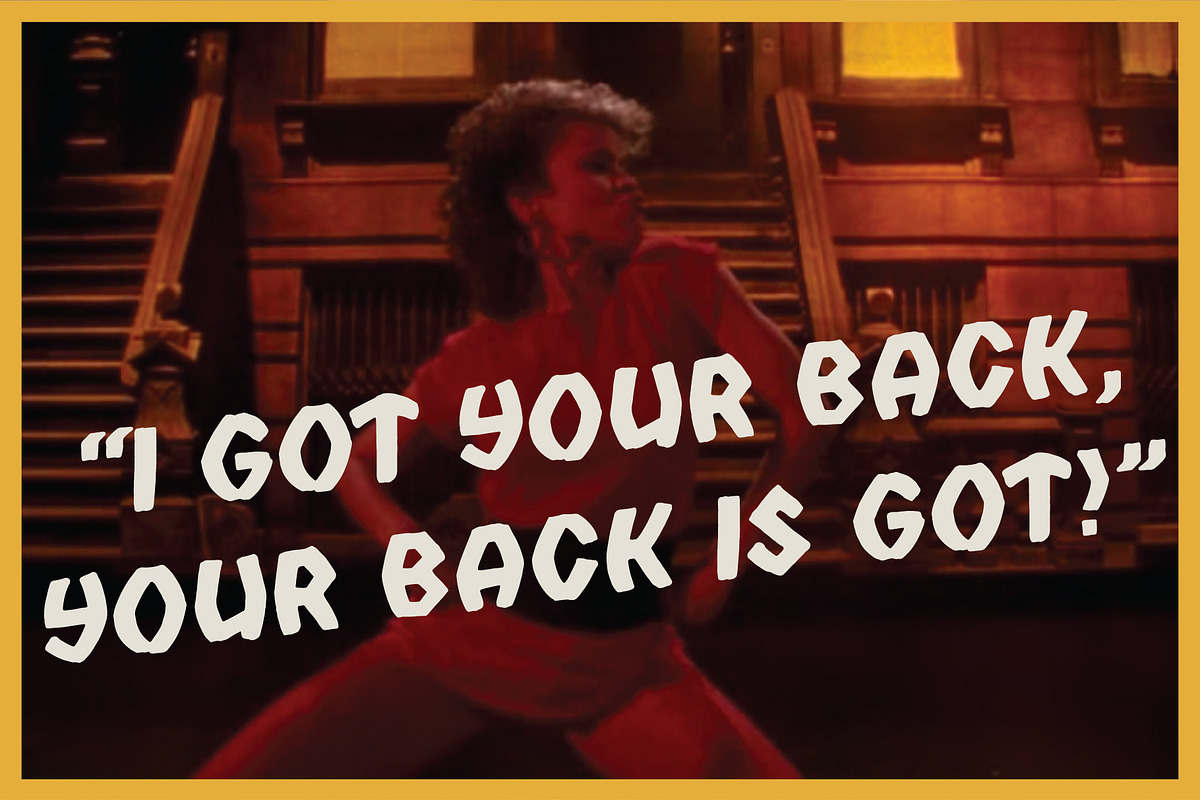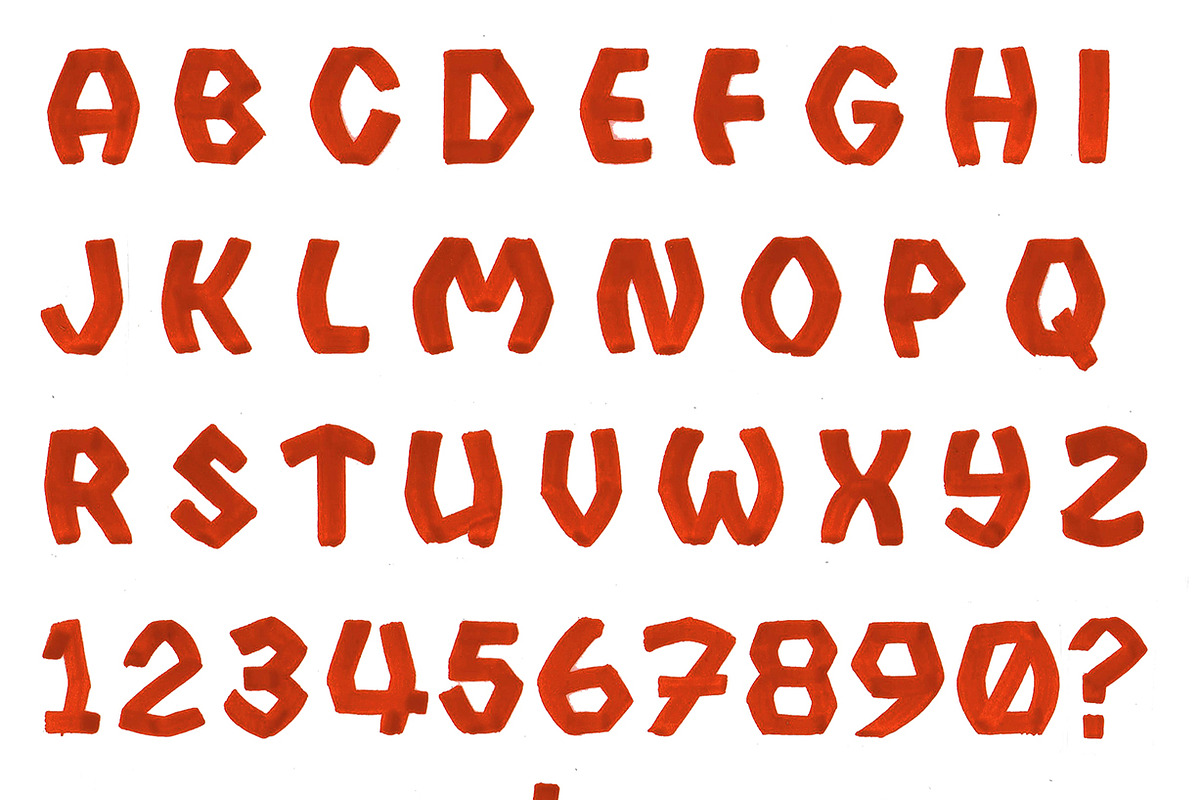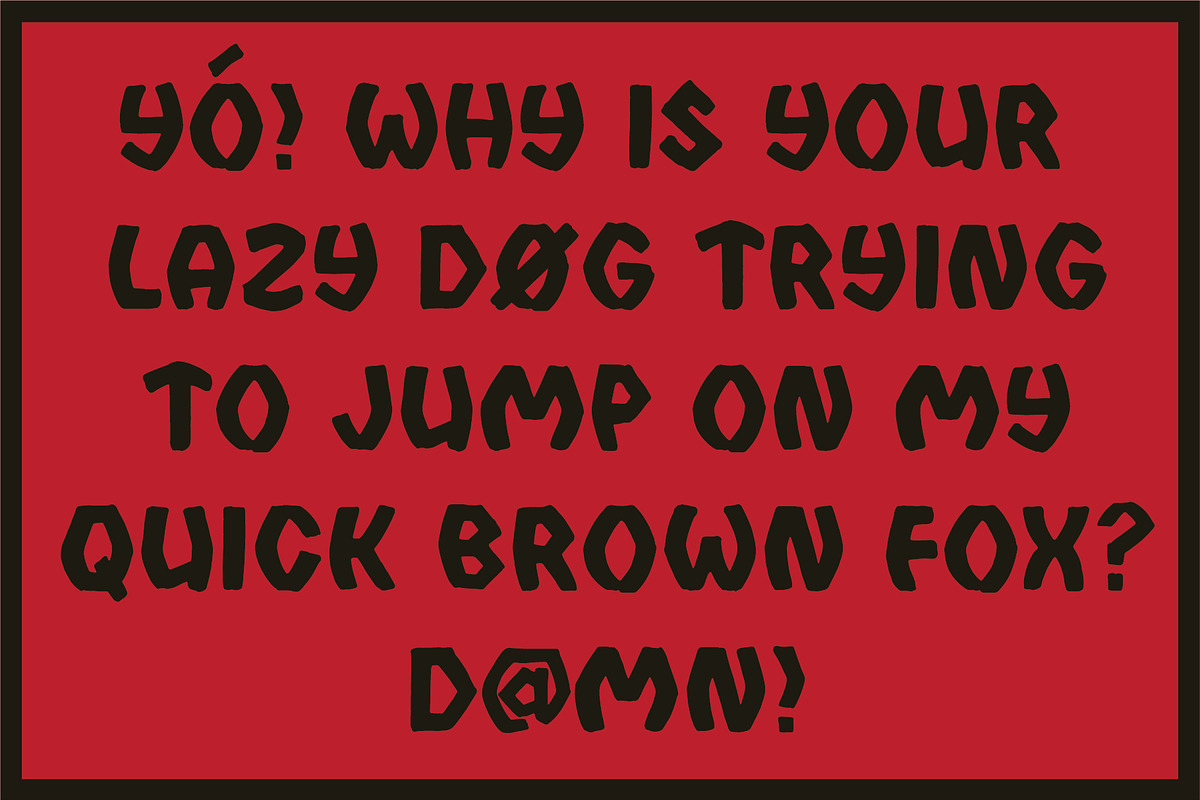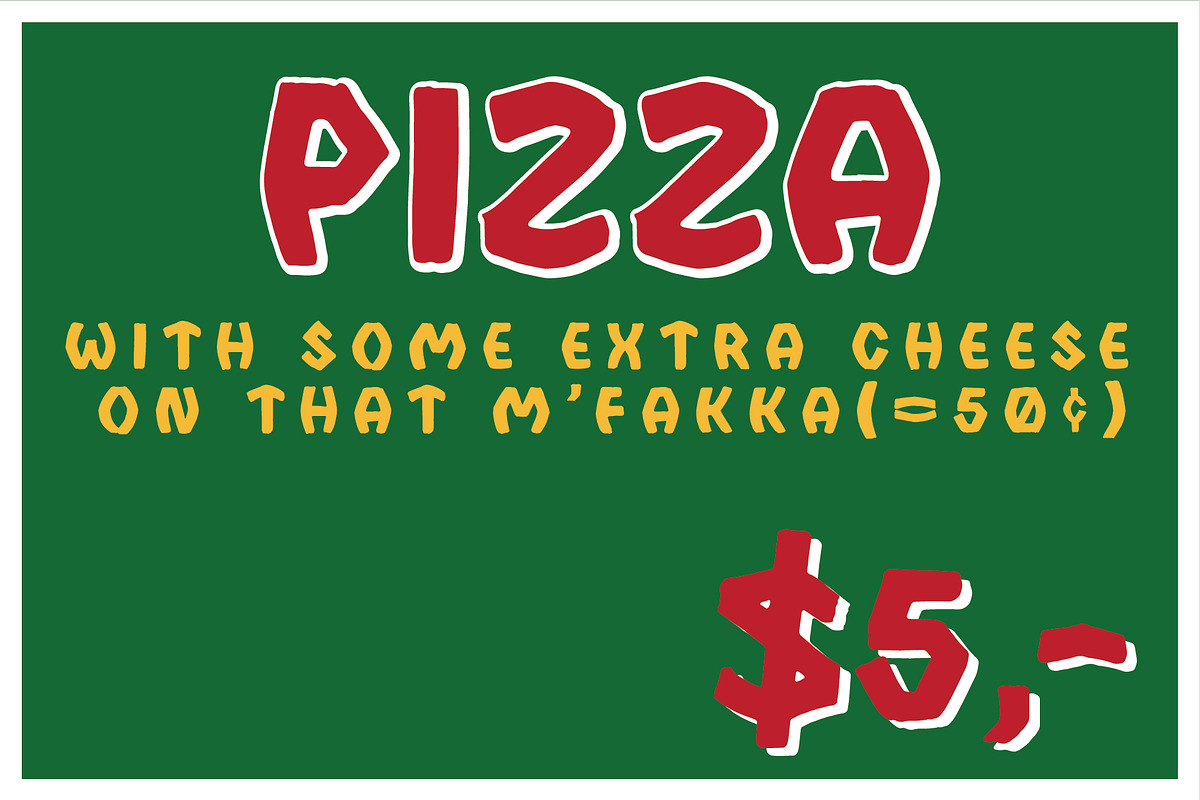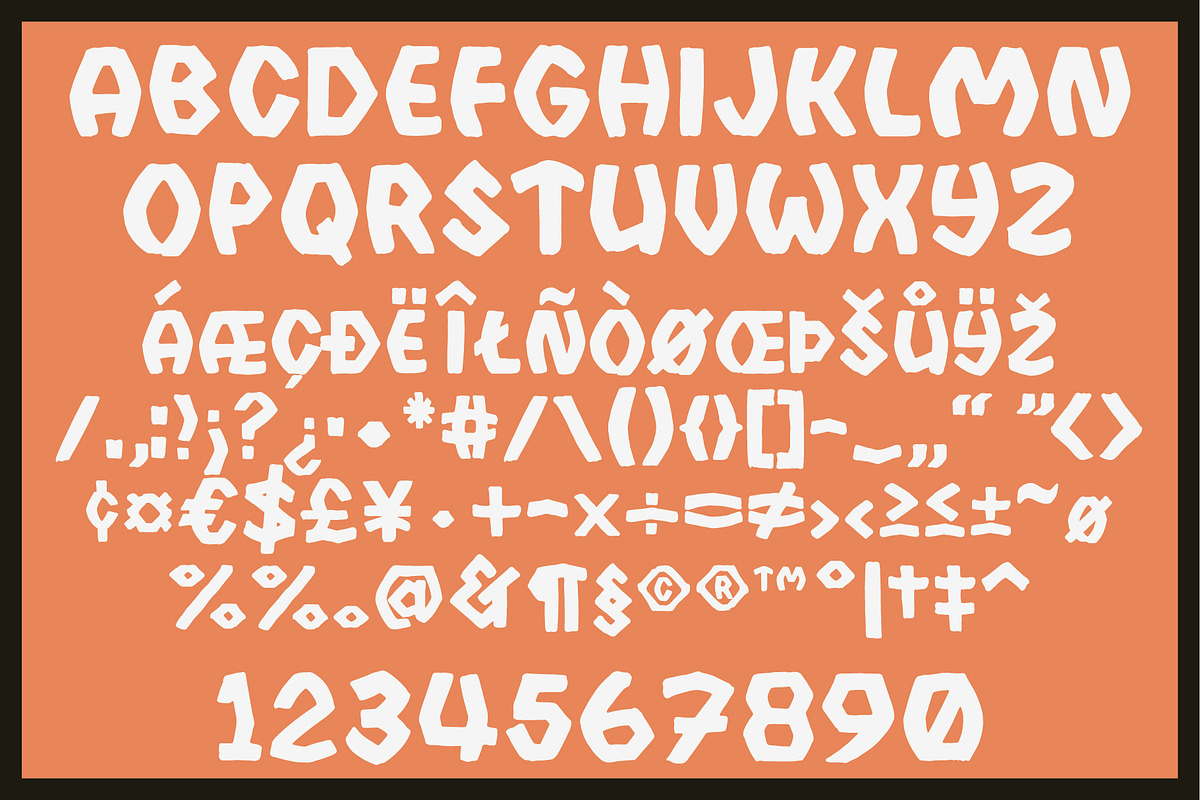
Do Right
I always have been a great fan of the movie Do The Right Thing by Spike Lee. I really love the typography of that cover. Whenever I wanted to design something with a Brooklyn feeling to it I had to think of that movie and went looking for a similar font. Because I could never find it, I decided to make one myself! So here it is, I proudly present the Do The Right Thing inspired font: Do Right.
This font is not exactly the same as the logotype. Biggest difference is that the logo uses a mix of lowercase and uppercase letters. I choose to go all uppercase! I hand painted every letter and then vectorized it, but kept the raw Brooklyn, Do-the-right-thing-feeling in this font.